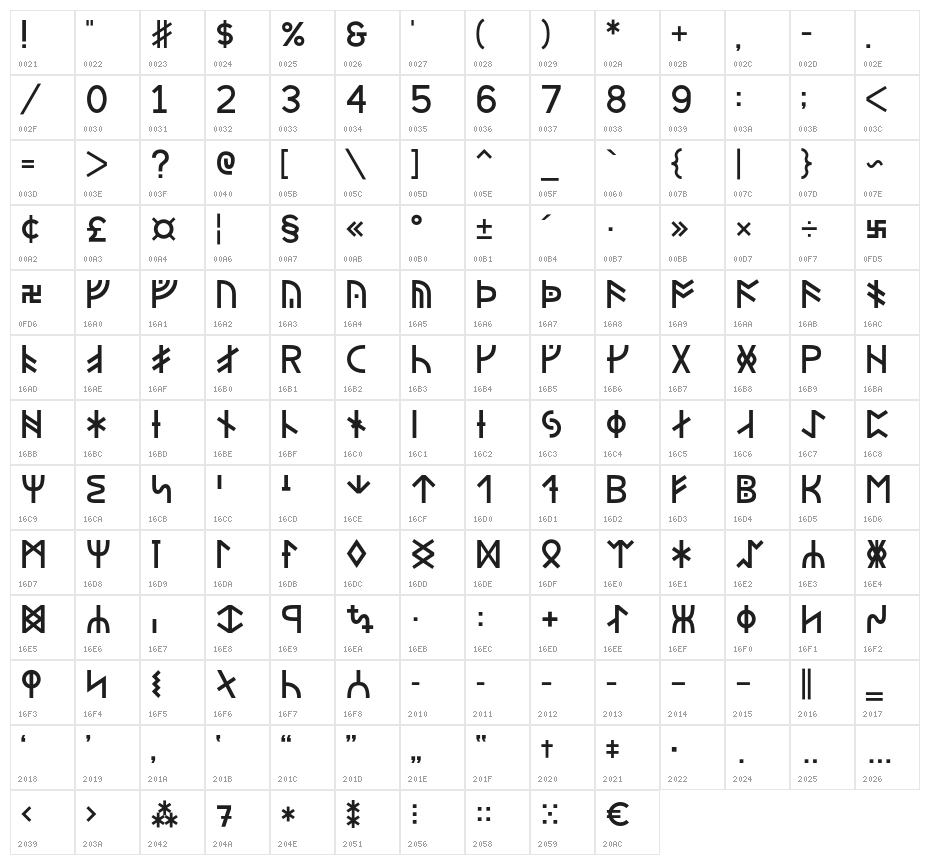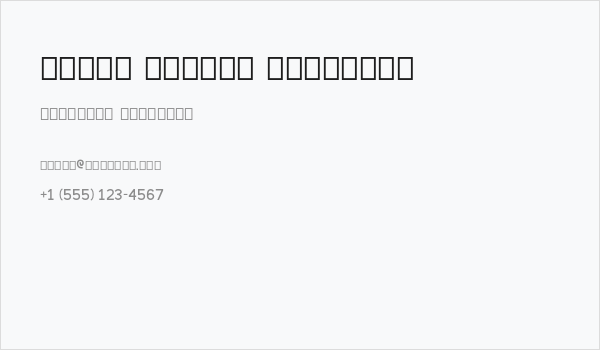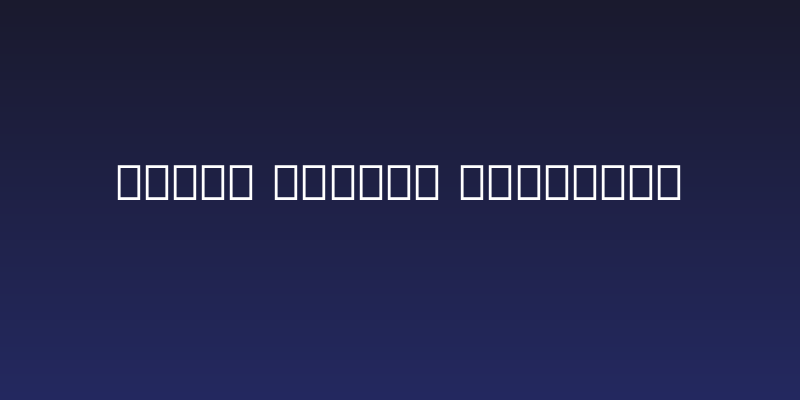
Beorc Gothic Semibold Font
Beorc Gothic Semibold Description
This font features a bold and structured design with a modern gothic influence. The characters are evenly spaced, providing a clean and organized appearance. The numerals are clear and distinct, making them easily readable. Special characters are well-defined, maintaining the overall aesthetic of the font. The style is versatile, suitable for both digital and print media. Its boldness ensures that it stands out, making it ideal for attention-grabbing headlines or titles. The font's modern gothic style gives it a unique edge, perfect for projects that require a contemporary yet classic feel.
| Overall Style | Modern Gothic |
| Use Case | Headlines, Branding, Posters |
| Proposed Projects | Ideal for branding, headlines, posters, and digital media. |